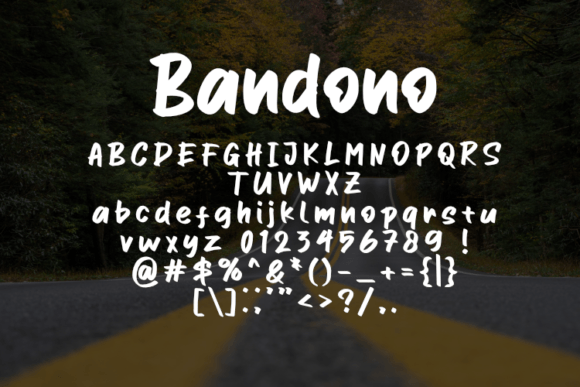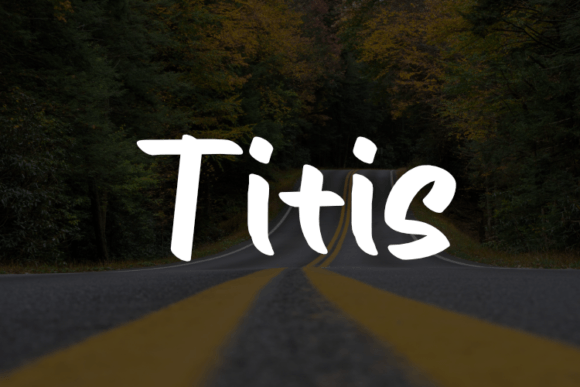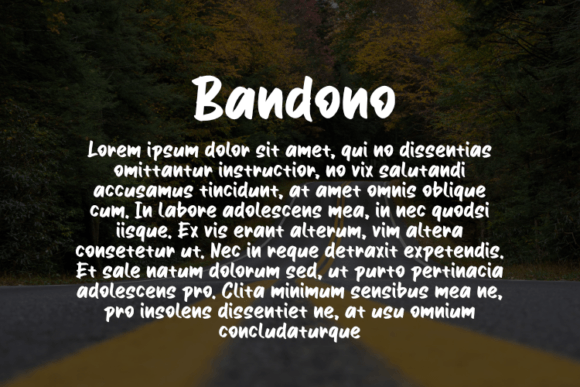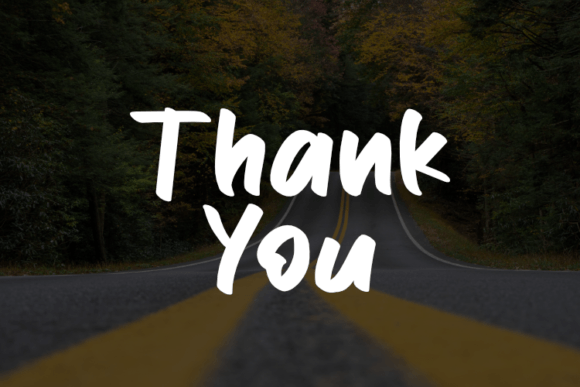
Unlock the Potential of Your Designs with Bandono Font
You’re staring at a blank canvas, a fresh design project waiting to be transformed into something truly unique. The blank page can be intimidating, but it’s also an opportunity to unleash your creativity. The right tools can make all the difference, and that’s where the Bandono Font comes in – a versatile typeface that’s about to take your designs to the next level.
Bandono Font is more than just a font; it’s a key to unlocking the essence of your fashion designs. Its universal appeal shines across all design scopes, effortlessly blending into any software platform. Whether you’re working on a trendy t-shirt or a distinctive clothing line, Bandono Font helps you capture attention while amplifying the style and functionality of your creations.
Bandono Font Key Features
- Font Family: Bandono Font offers a unique, handwritten style with multiple font weights, ranging from Light to Extra Bold.
- Unique Characteristics: The font features a distinctive, hand-drawn look with subtle imperfections, giving it a personal and creative touch.
Bandono Font Review
Overall, I think the Bandono Font has some nice qualities that make it suitable for certain design projects. ✨ The font’s playful and whimsical feel is reminiscent of hand-drawn illustrations, which can be quite charming. ✨ The font’s irregular shapes and lines also add a touch of personality to the text, making it stand out from more traditional fonts. ✨ Additionally, the font’s versatility in terms of size and spacing makes it easy to use in a variety of contexts.
However, there are also some limitations to the font that I think designers should be aware of. ⚠️ The font’s irregularities can sometimes make it difficult to read, particularly at smaller sizes. ⚠️ Additionally, the font’s playful feel can be overwhelming if used in large quantities or in contexts where a more serious tone is required. ⚠️ Finally, the font’s lack of consistency in terms of weight and style can make it harder to use in conjunction with other fonts.
- Works well for playful, whimsical designs
- Suitable for use in illustrations and graphics
- Easy to use in a variety of contexts due to its versatility
In conclusion, the Bandono Font is a fun and unique addition to any designer’s toolkit. While it may have some limitations, it can be a great choice for projects where a playful, hand-drawn feel is desired.
Bandono Font is a modern, sans-serif font that is perfect for digital designs. Some common use cases include:
- Brand identity
- Social media graphics
- Web design
When using Bandono Font, be sure to pair it with other modern fonts to create a cohesive design.